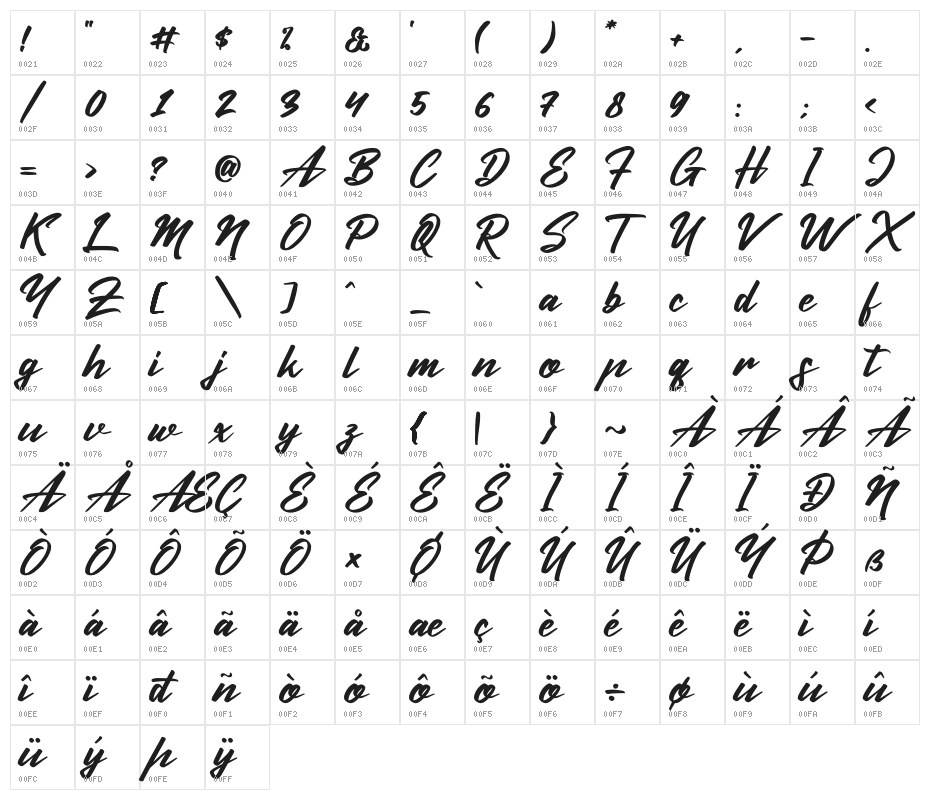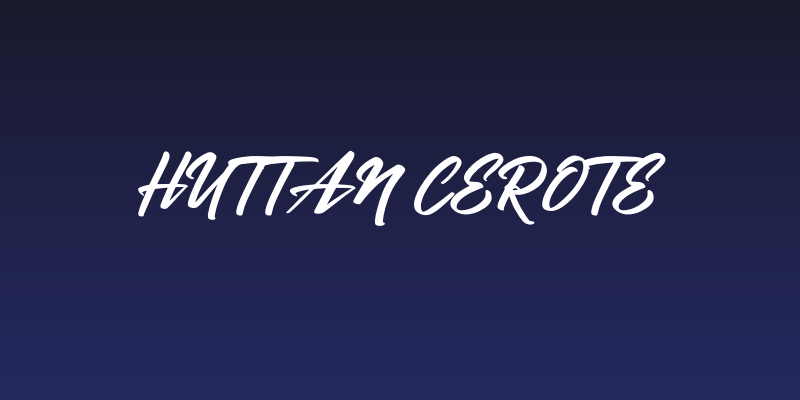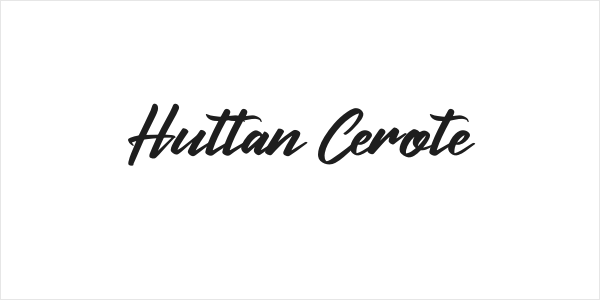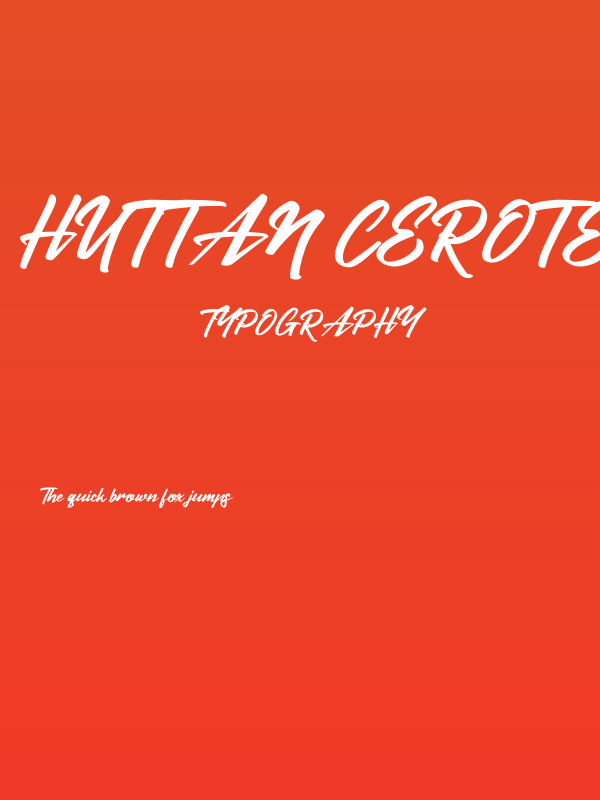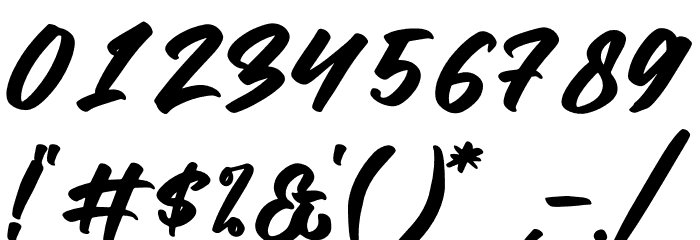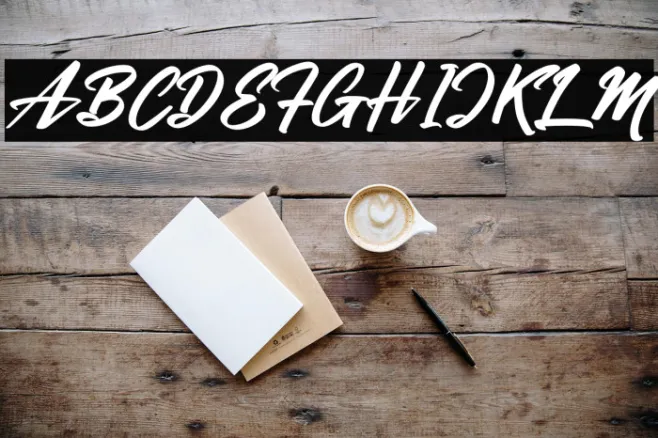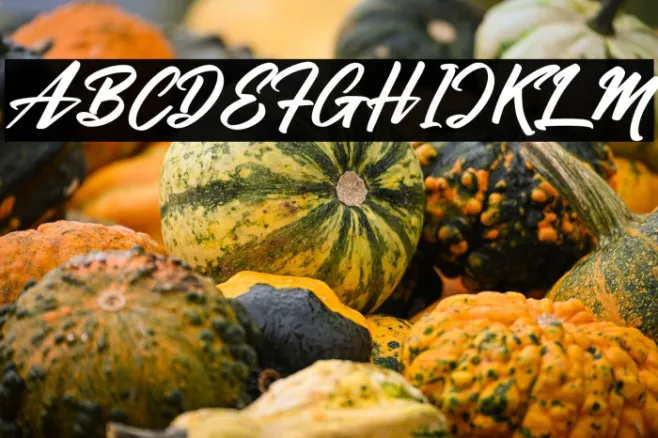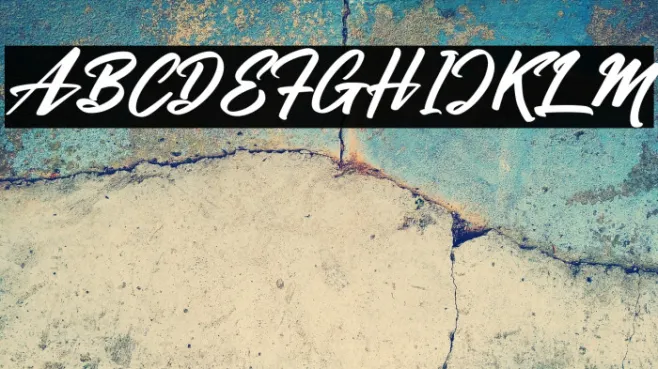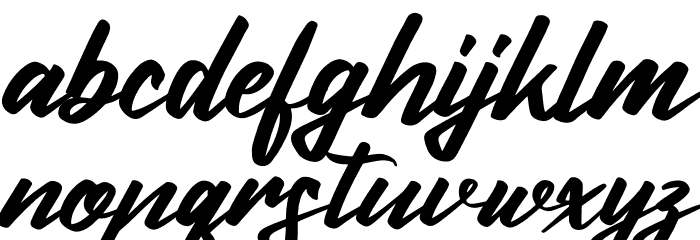
Huttan Cerote Font
Huttan Cerote Description
This font features a bold, cursive style with a dynamic and flowing appearance. The letters are interconnected, creating a sense of movement and elegance. The uppercase letters are slightly more angular, while the lowercase letters maintain a smooth, rounded form. The numbers and special characters follow the same cursive style, ensuring consistency throughout the font. The strokes are thick and consistent, providing a strong visual impact. This font is ideal for projects that require a touch of sophistication and flair.
| Proposed Projects | This font is perfect for branding, invitations, greeting cards, and any design that requires an elegant and stylish touch. |